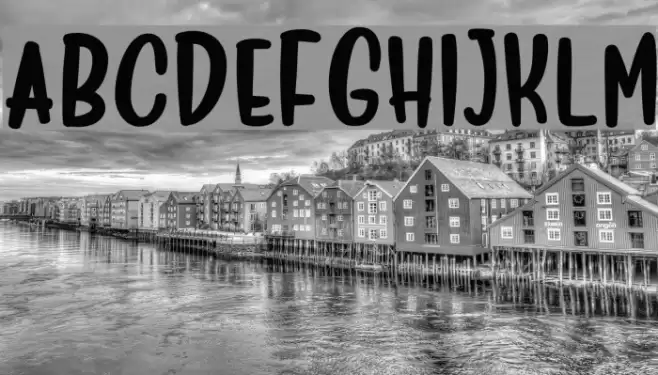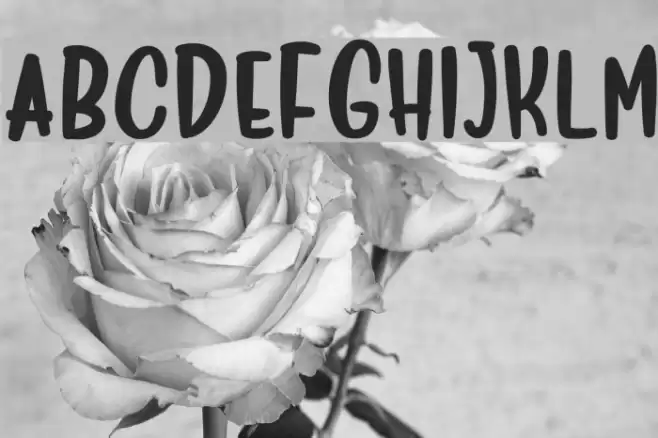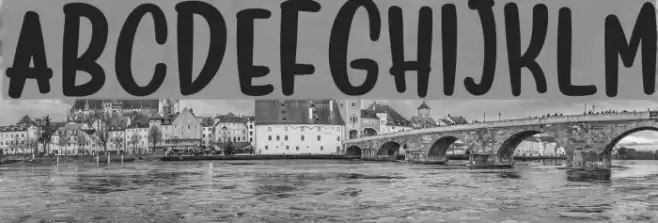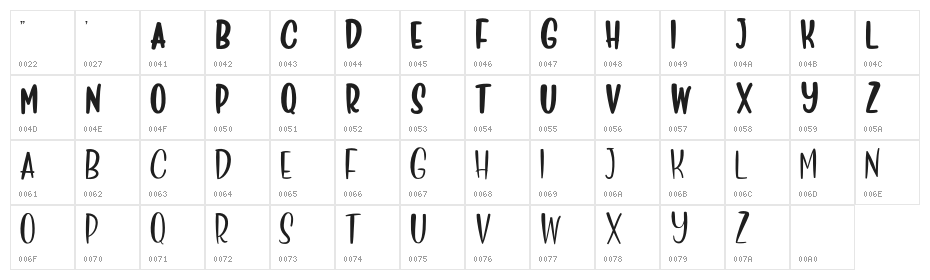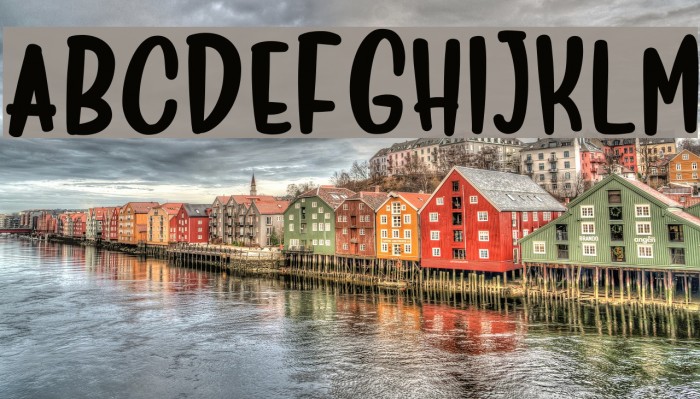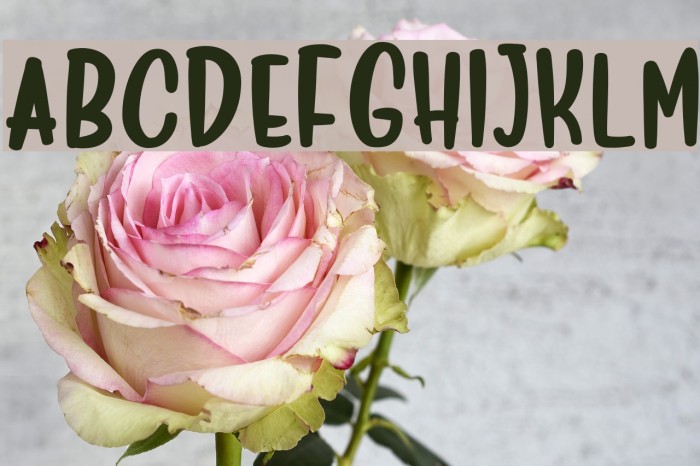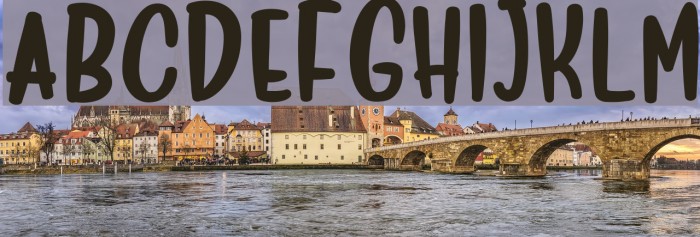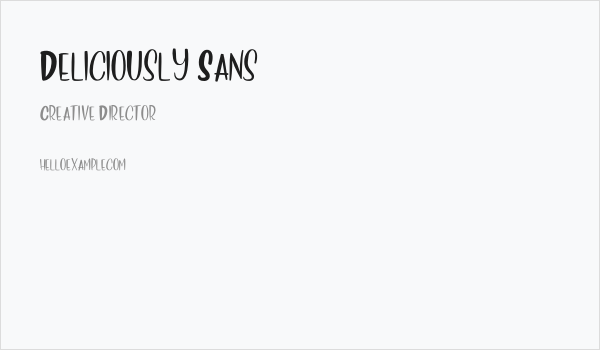
Deliciously Sans Font
Deliciously Sans Description
This font features a playful and bold style with a hand-drawn appearance. The uppercase letters are rounded and slightly irregular, giving them a whimsical and friendly look. The lowercase letters maintain the same playful quality, with some characters extending slightly below the baseline, adding to the casual feel. The strokes are thick and consistent, providing a strong visual impact. This font is well-suited for creative projects that require a fun and approachable aesthetic.
A playful, bold, hand-drawn font with a whimsical and friendly appearance from Uncategorized fonts.
- Proposed Projects: Ideal for children's books, playful branding, greeting cards, and social media graphics.
- Overall Style: Playful